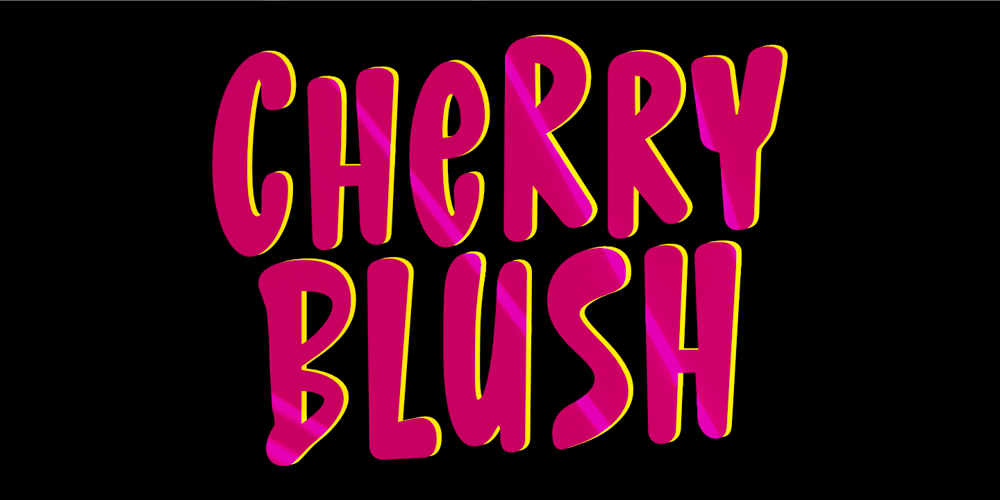
Cherry Blush Font Family was designed by Aldy Sidik and published by Epiclinez. Cherry Blush contains 1 styles and family package options. Cherry Blush is a bold, vibrant, playful typeface with charm and personality. Its rounded edges and dynamic curves make it the perfect choice for creating a cheerful and approachable design aesthetic. This versatile font is suitable for various applications, including product branding, logotypes, movie titles, headlines, and more.With its eye-catching style and confident structure, Cherry Blush adds a whimsical yet professional touch to any project. Its bold strokes and fun character shapes are designed to stand out, ensuring your designs leave a memorable impression. Whether crafting a brand identity or making a statement in digital or print media, Cherry Blush brings a sense of joy and creativity that captivates audiences.Cherry Blush features : Standard Latin Numbers, symbols, and punctuations Multilingual Support. Fully accessible without additional design software Simple Installations Works on PC & Mac Thank You